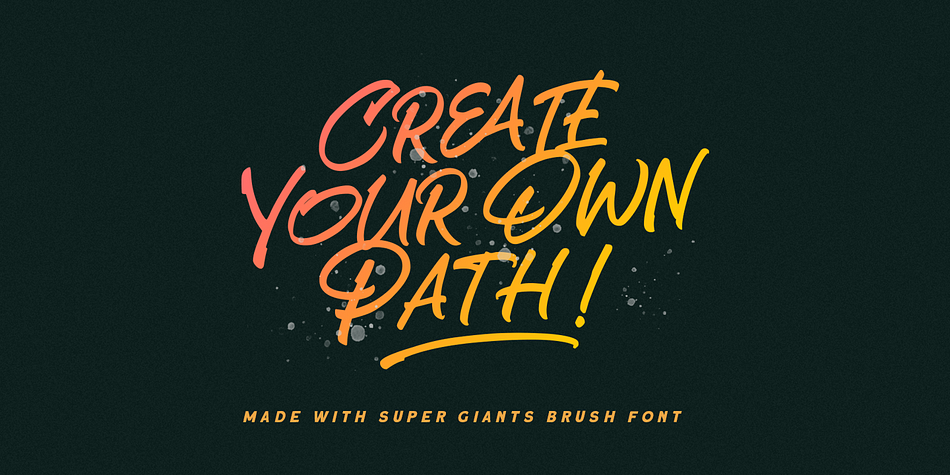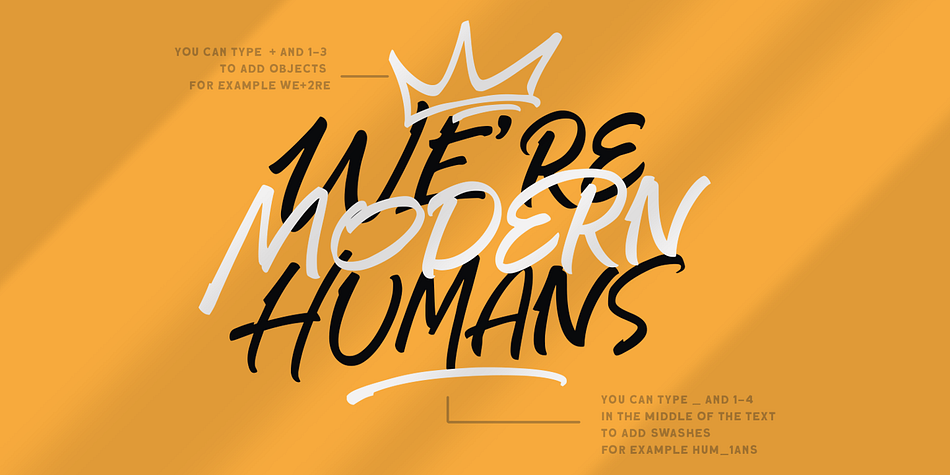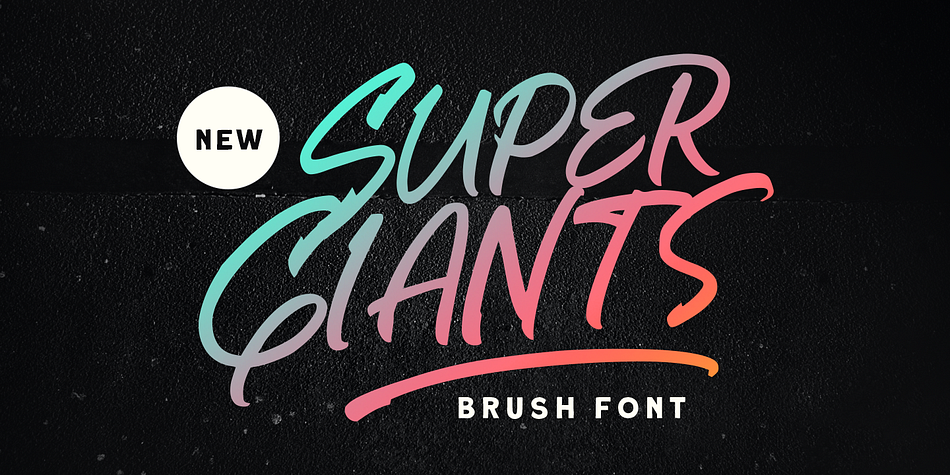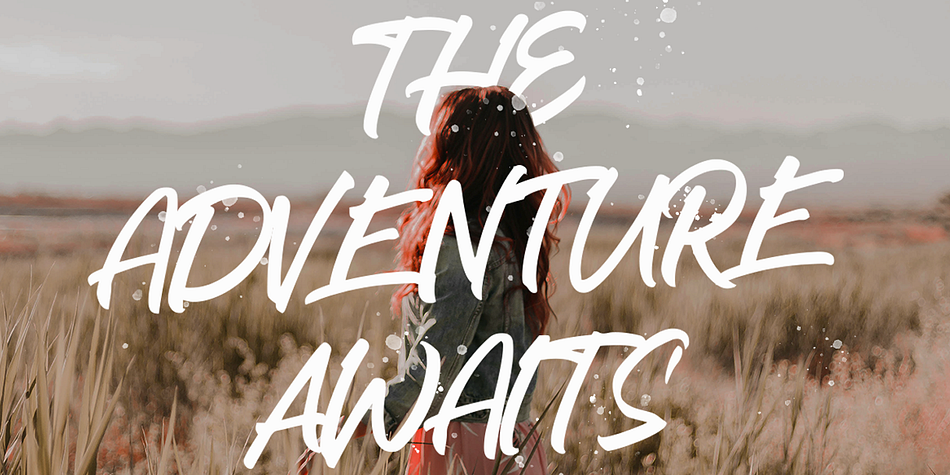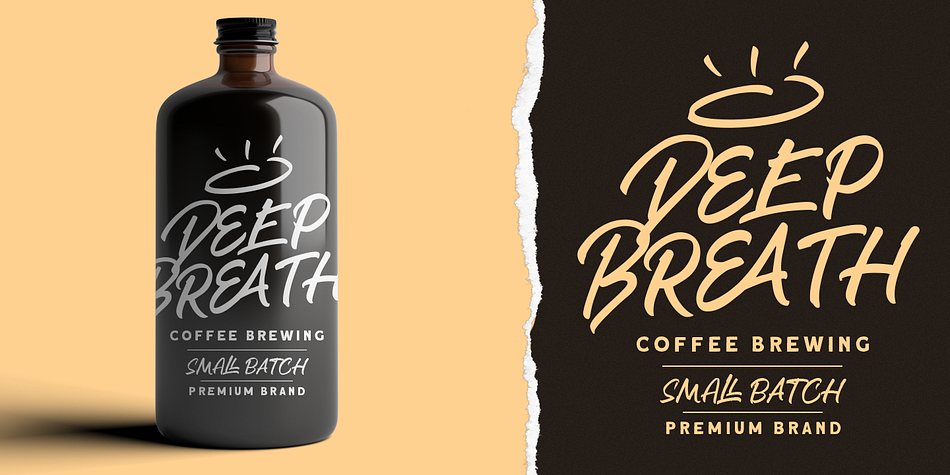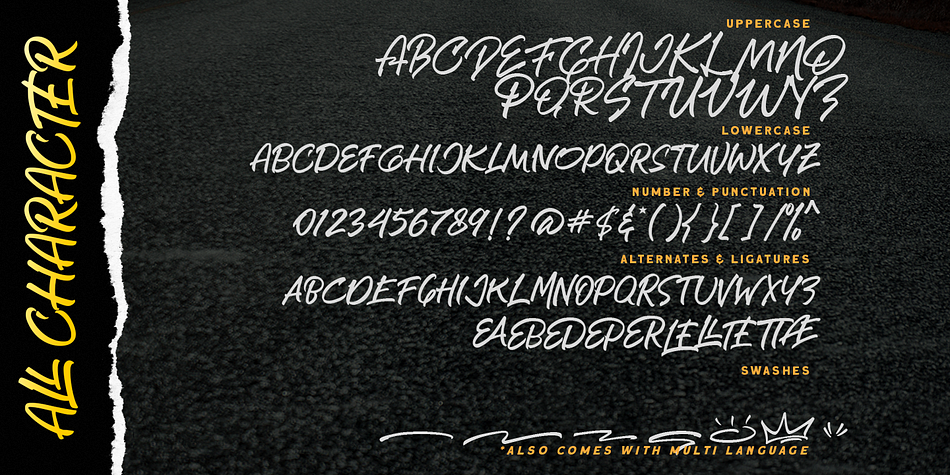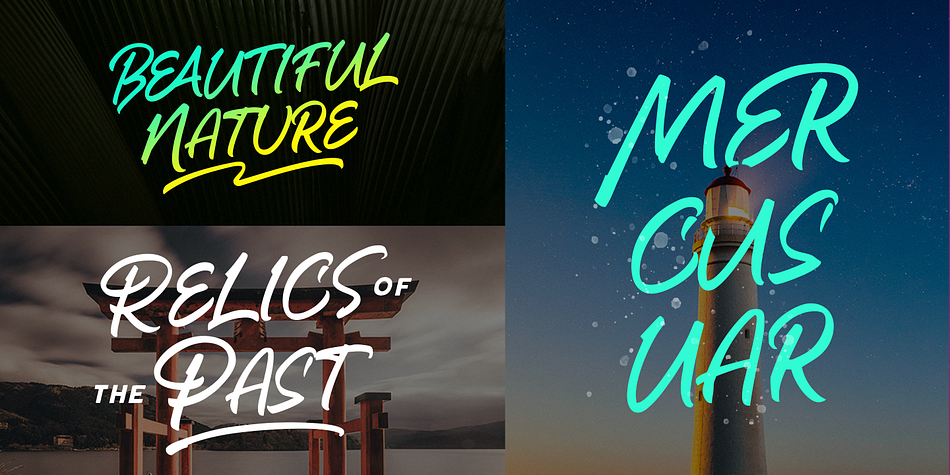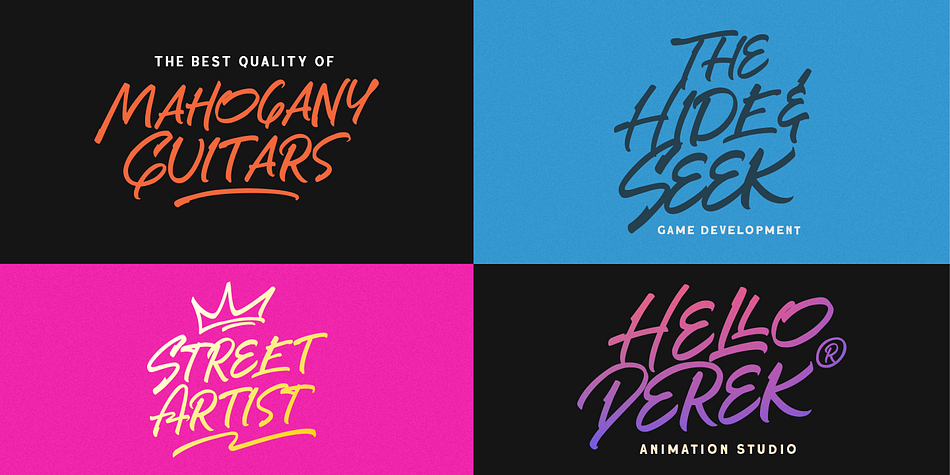
Designed by Hendry Juanda, Super Giants is a brush display, hand drawn and script font published by Letterhend Studio.
Introducing, Super Giants - a brush font with natural hand writing with modern and dynamic feel. This type of font perfectly made to be applied especially in logo, and the other various formal forms such as invitations, labels, logos, magazines, books, greeting / wedding cards, packaging, fashion, make up, stationery, novels, labels or any type of advertising purpose.
- alternates and ligatures
- swashes